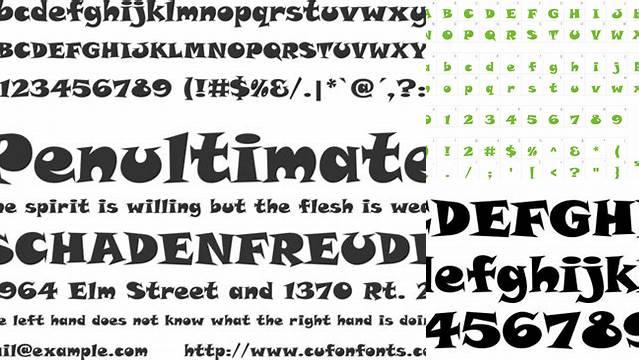
Snap ITC Font Free: Your Ultimate Guide
What is Snap ITC Font and Why Does Everyone Love It?
Alright, let's talk about why Snap ITC is so darn popular. Think of it as that friend who always knows how to dress well – it's got a certain style that's both eye-catching and versatile. This font, created by ITC (International Typeface Corporation), is known for its bold, rounded letterforms. It's got a playful vibe, making it perfect for everything from headlines to logos and even some body text, depending on the context. The design of the Snap ITC font is characterized by its friendly, approachable style. The rounded terminals and generous counters give it a soft and inviting feel. Because of its inherent legibility and its cheerful disposition, Snap ITC finds its way into many different projects. Whether you're working on a poster, a website, or a social media graphic, Snap ITC brings a touch of personality that can really elevate your work. It is often used in branding due to its distinct look, helping to define the visual identity of a company or product. It is an appealing choice for businesses aiming for a fun or youthful image. Its adaptability is its strength, as it is just as effective in print as it is on a screen. This is a major reason for the font's longevity and widespread use by graphic designers and creative professionals everywhere. You'll also see it in various digital and print media. Think about magazines, advertisements, and even the occasional book cover. Its ability to stand out while remaining readable makes it a go-to choice for grabbing attention. Designers love it because it's a simple way to add character without being overly complicated. So, basically, it's a font that's easy on the eyes and packs a visual punch. If you're a beginner, this font family is good to learn, because it can be easy to recognize and recognize in different projects, helping you become familiar with the different types of fonts.
But why is it such a beloved choice? Well, first off, it's got that instantly recognizable look. Snap ITC isn't trying to be something it's not; it knows what it is and it owns it. Its clean lines and modern feel make it incredibly versatile. You can use it in a ton of different projects, from websites and posters to logos and even smaller text blocks. It's the kind of font that adds a touch of personality without overwhelming the design. You can easily combine this font with various other fonts to make sure the designs are attractive. Its versatility is a major plus. Moreover, Snap ITC is often considered a good choice to promote a sense of friendliness and approachability. In a world where design can sometimes feel cold and impersonal, Snap ITC offers a welcoming alternative. This is super important if you're looking to connect with your audience on a more human level. It's a great way to make your brand feel more relatable and trustworthy. Plus, it just looks good! There's a reason why so many people are drawn to it. The well-balanced curves and the way the letters flow together create a visually pleasing experience. It's like finding the perfect outfit – it just feels right. Therefore, Snap ITC is more than just a font; it's a design tool that offers a lot of flexibility and visual appeal. With its distinctive appearance and welcoming characteristics, it's no surprise that it is one of the font choices of many designers.